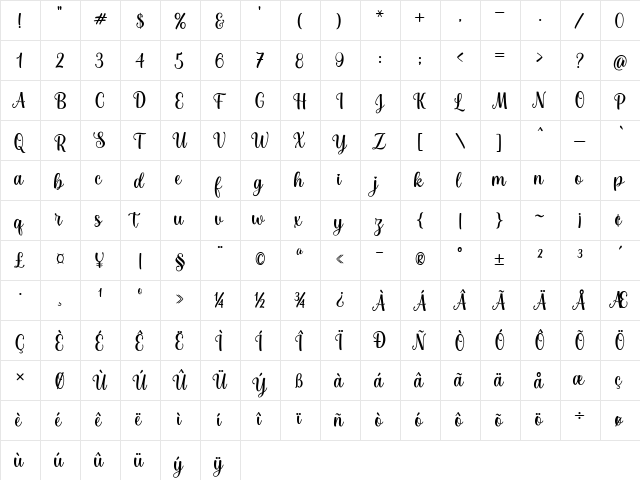
josephsophia Regular
| Foundry | Fargun Studio |
| Designer | Fajar Gunawan |
josephsophia is a composed and adaptable typeface that performs quietly and consistently across a wide range of design contexts.